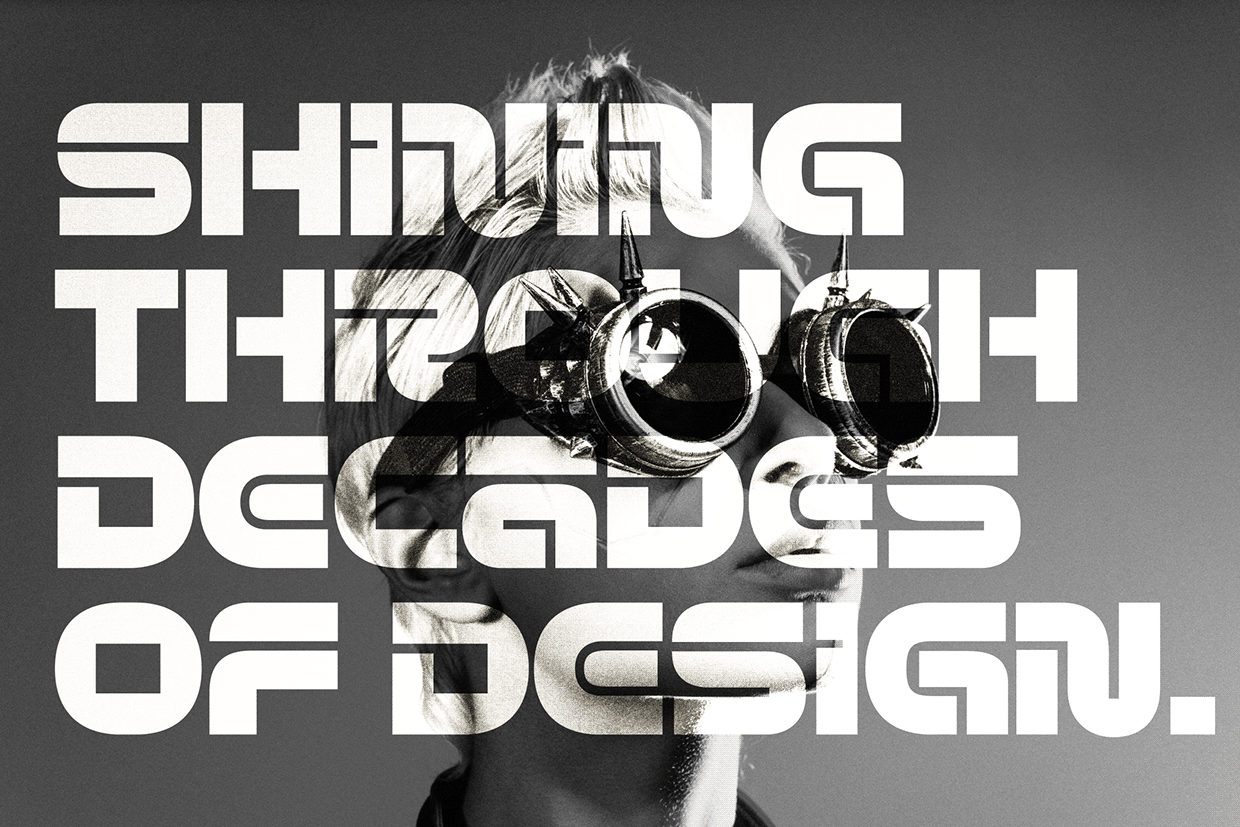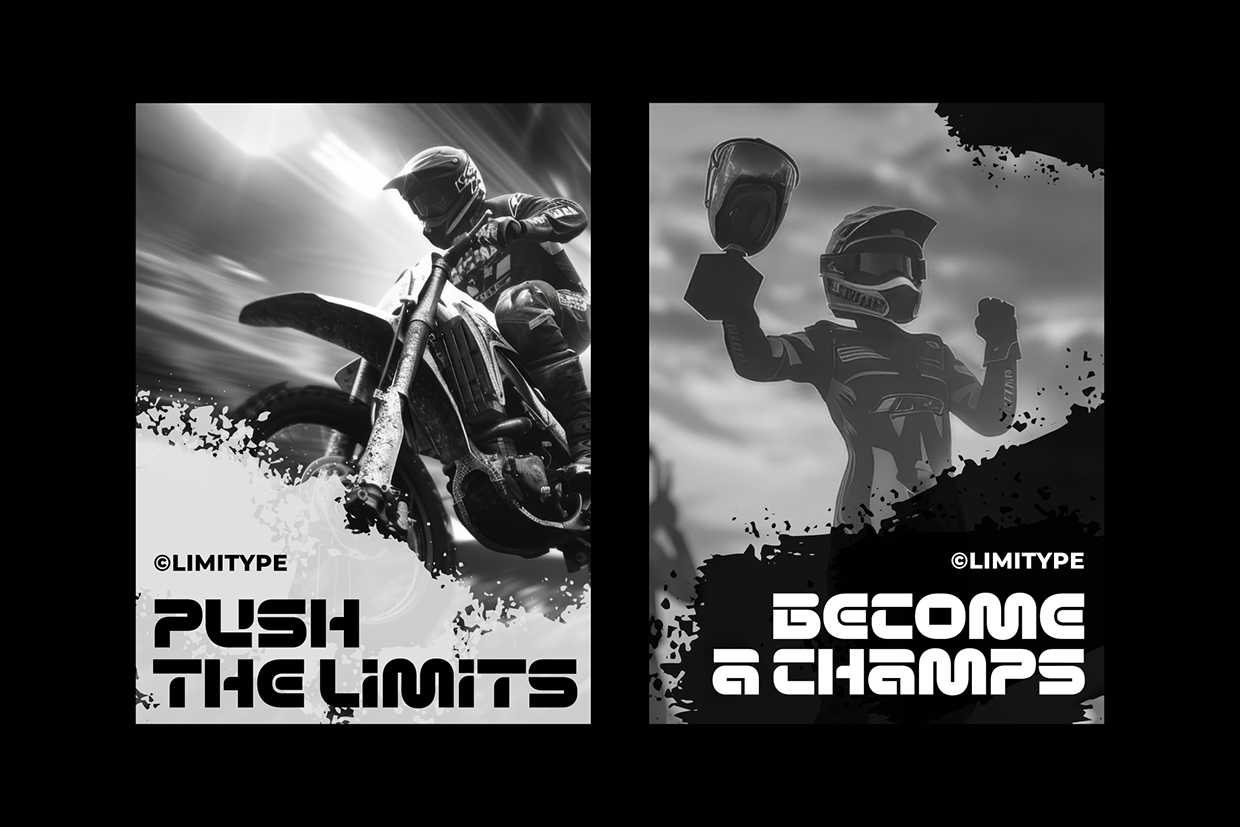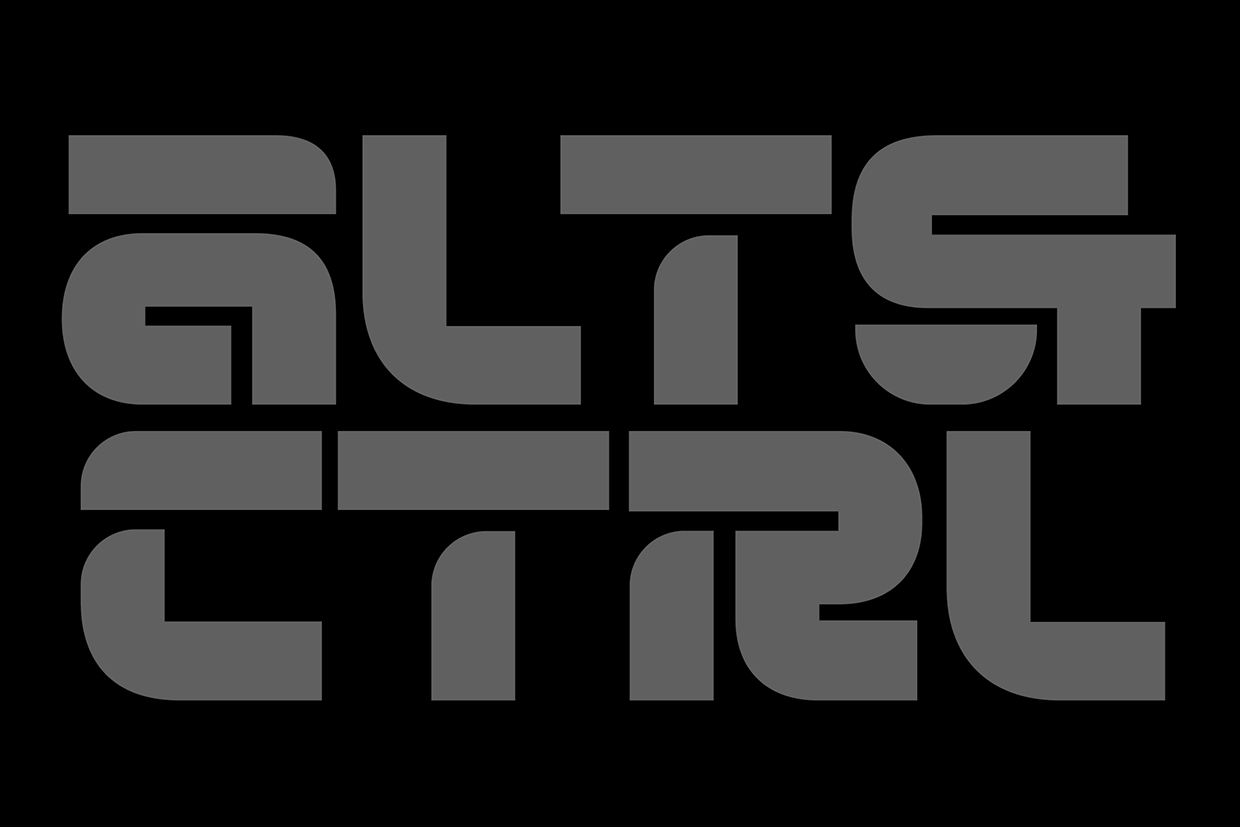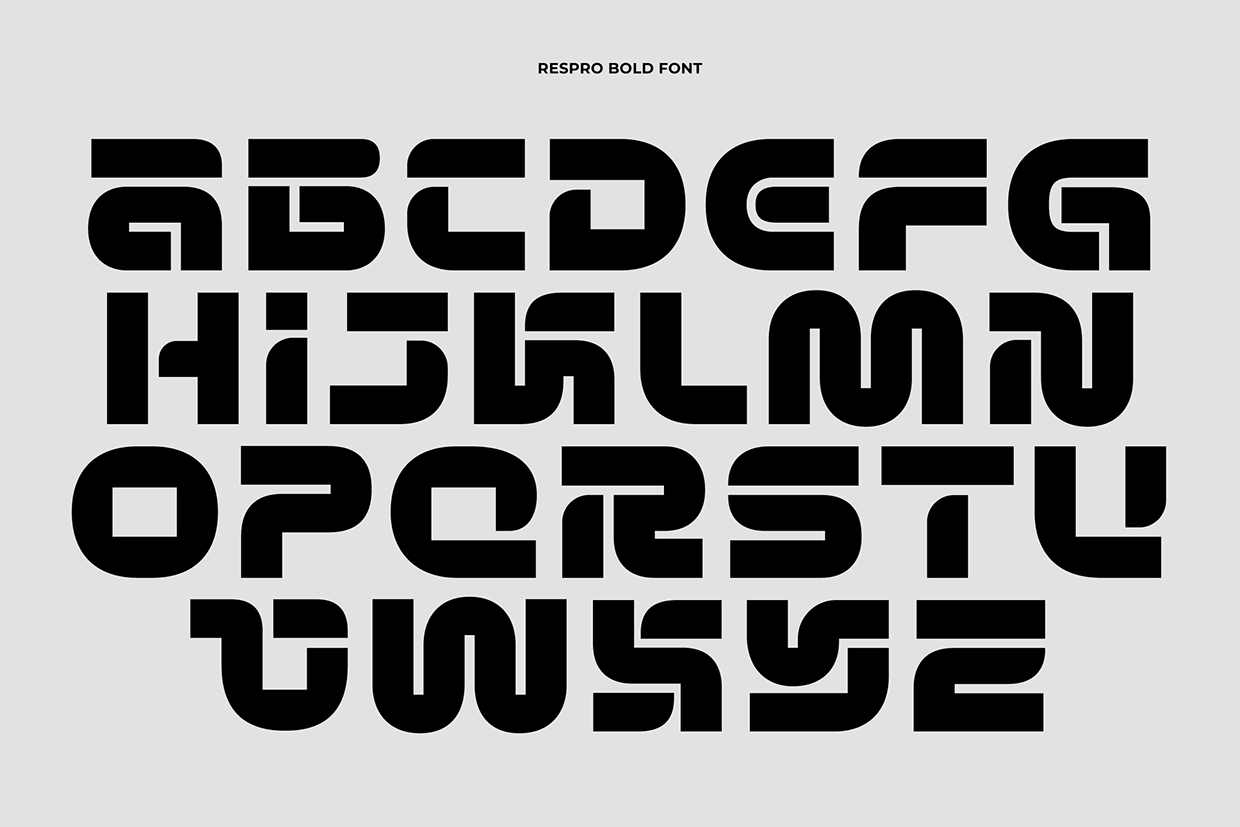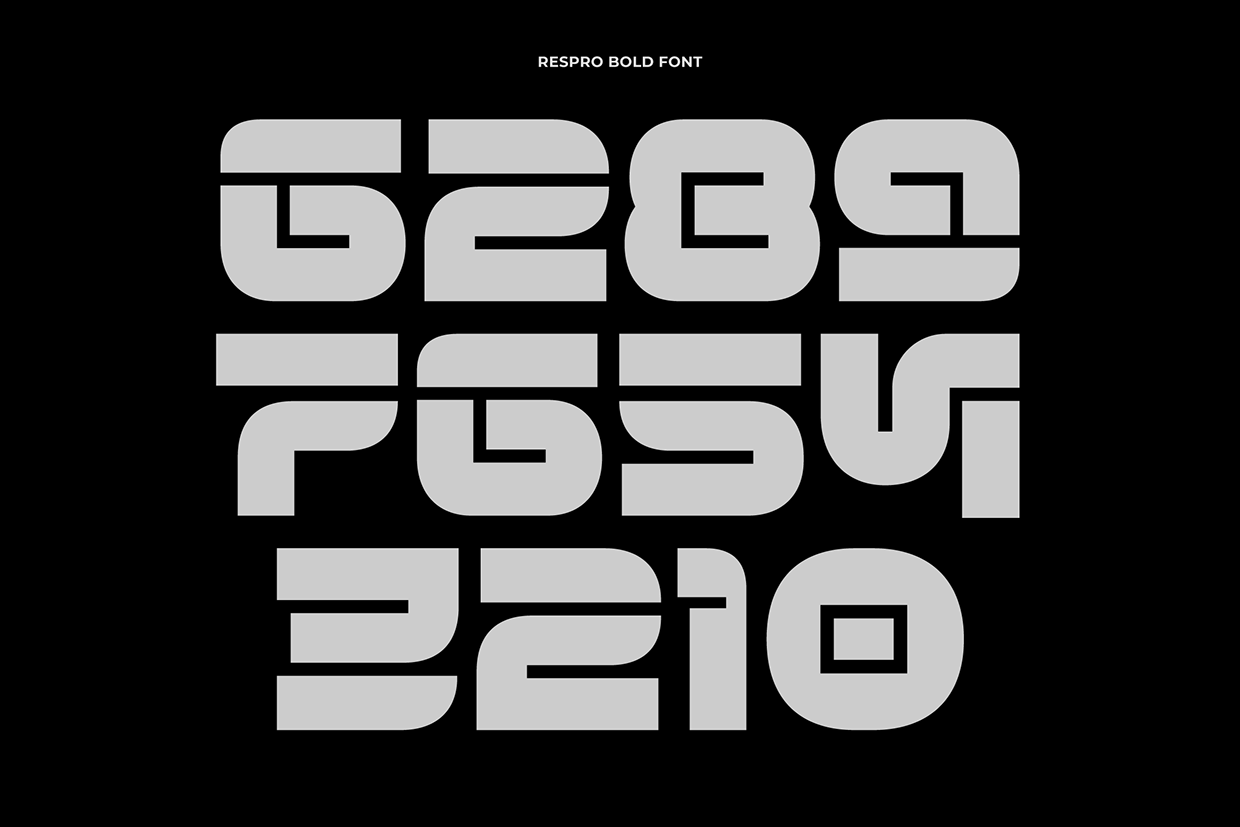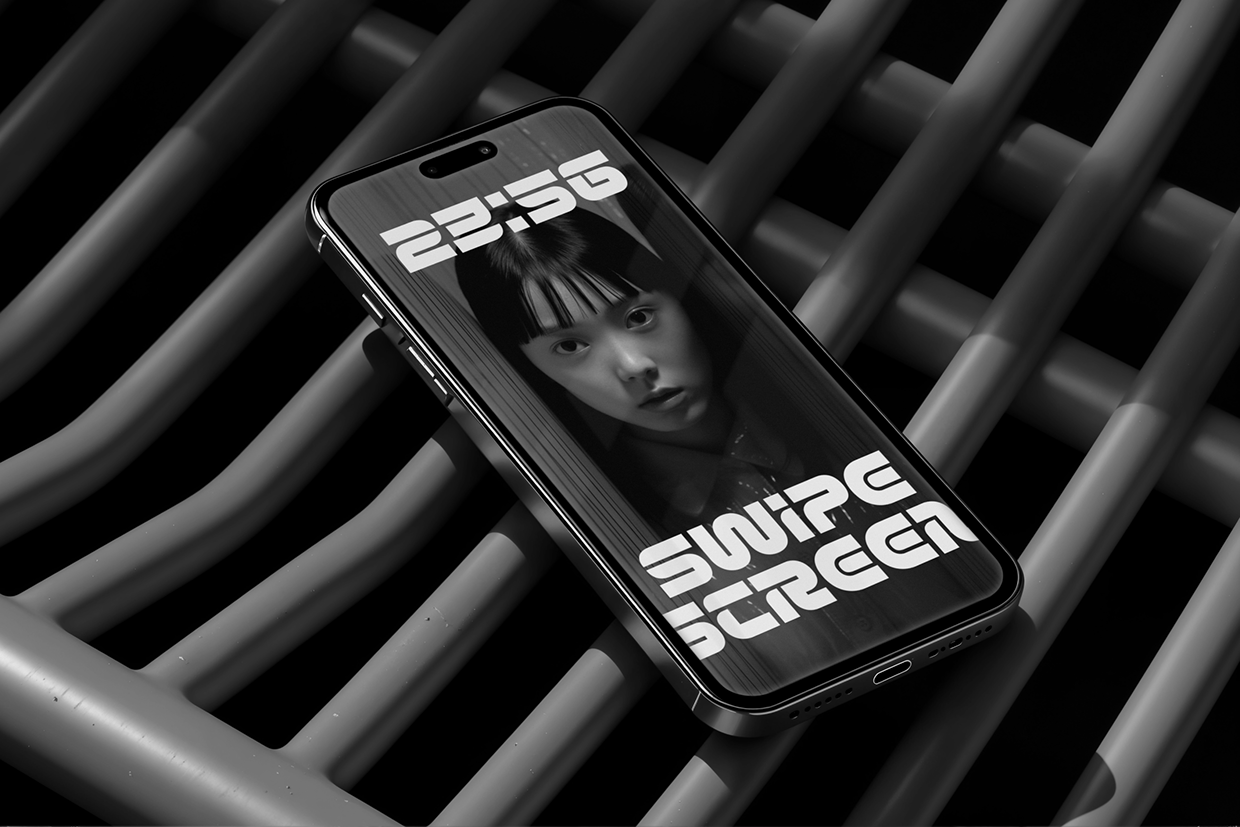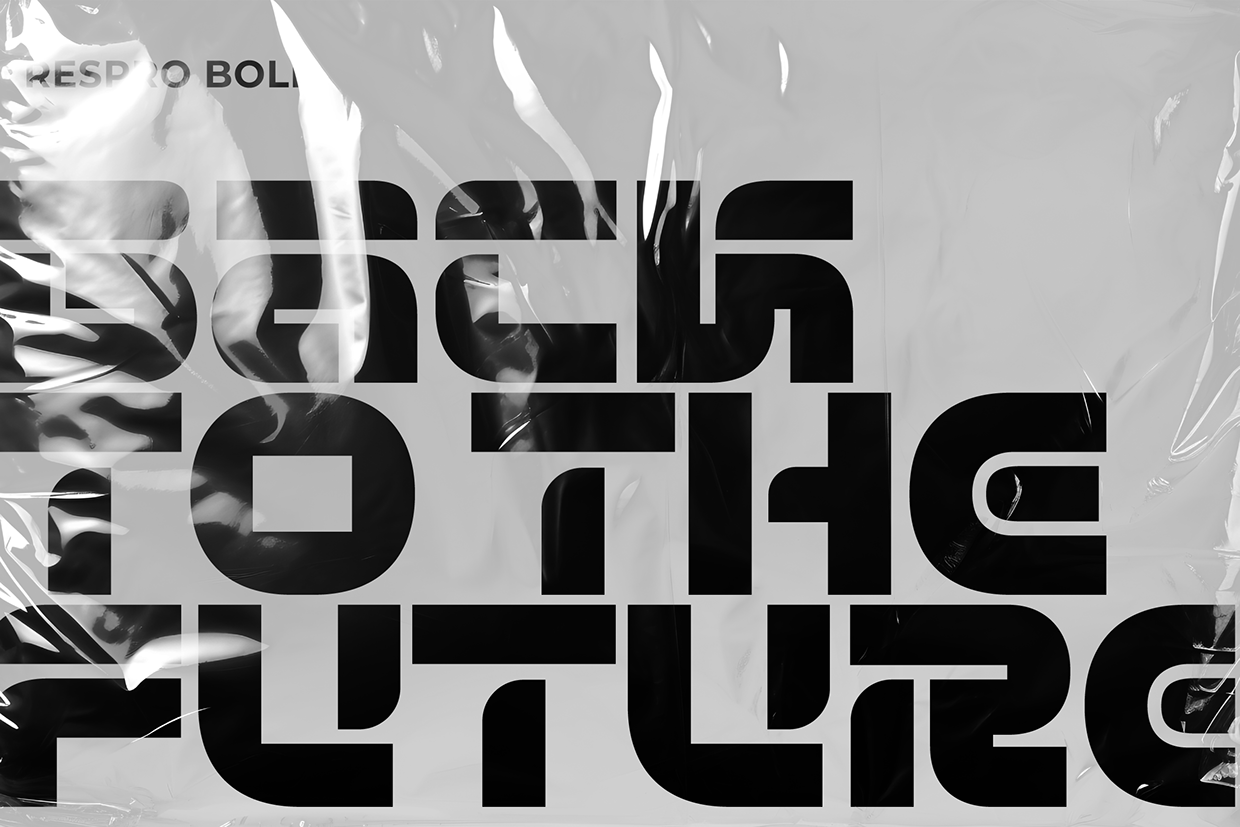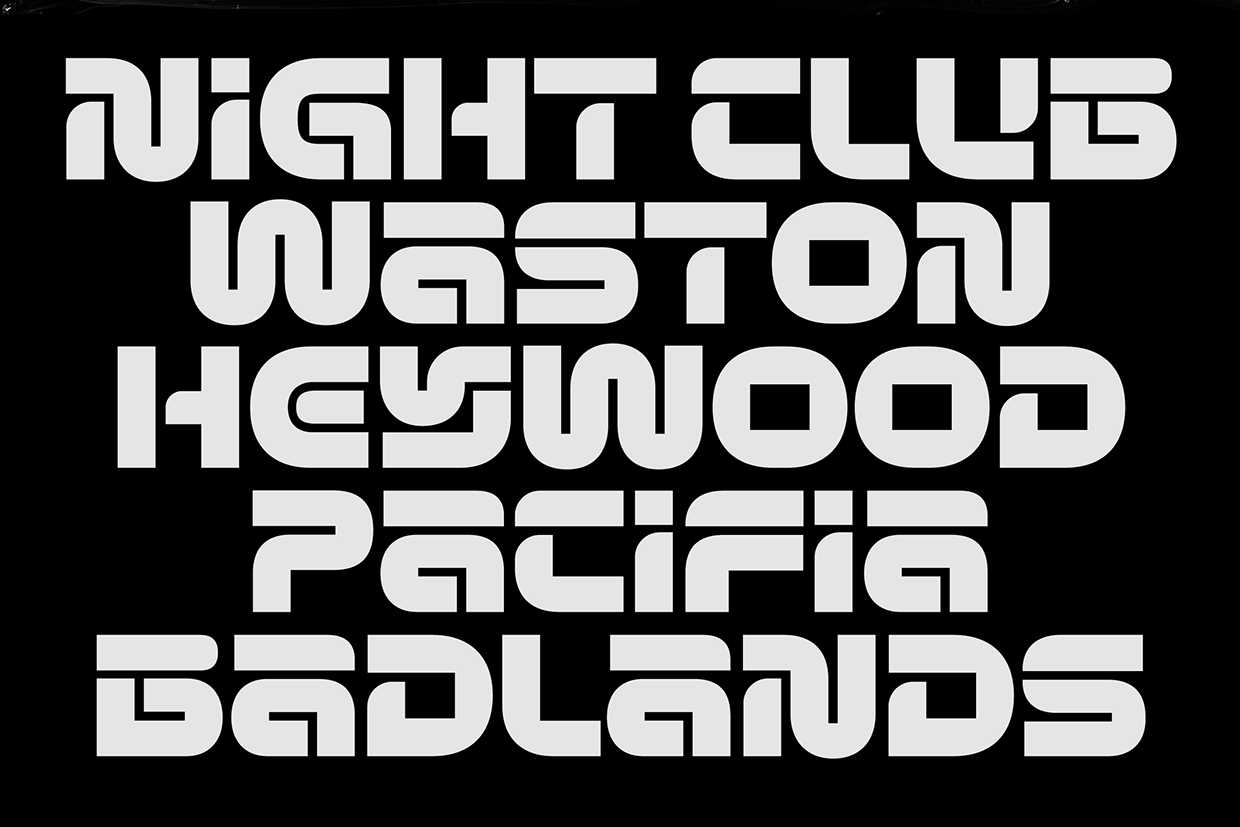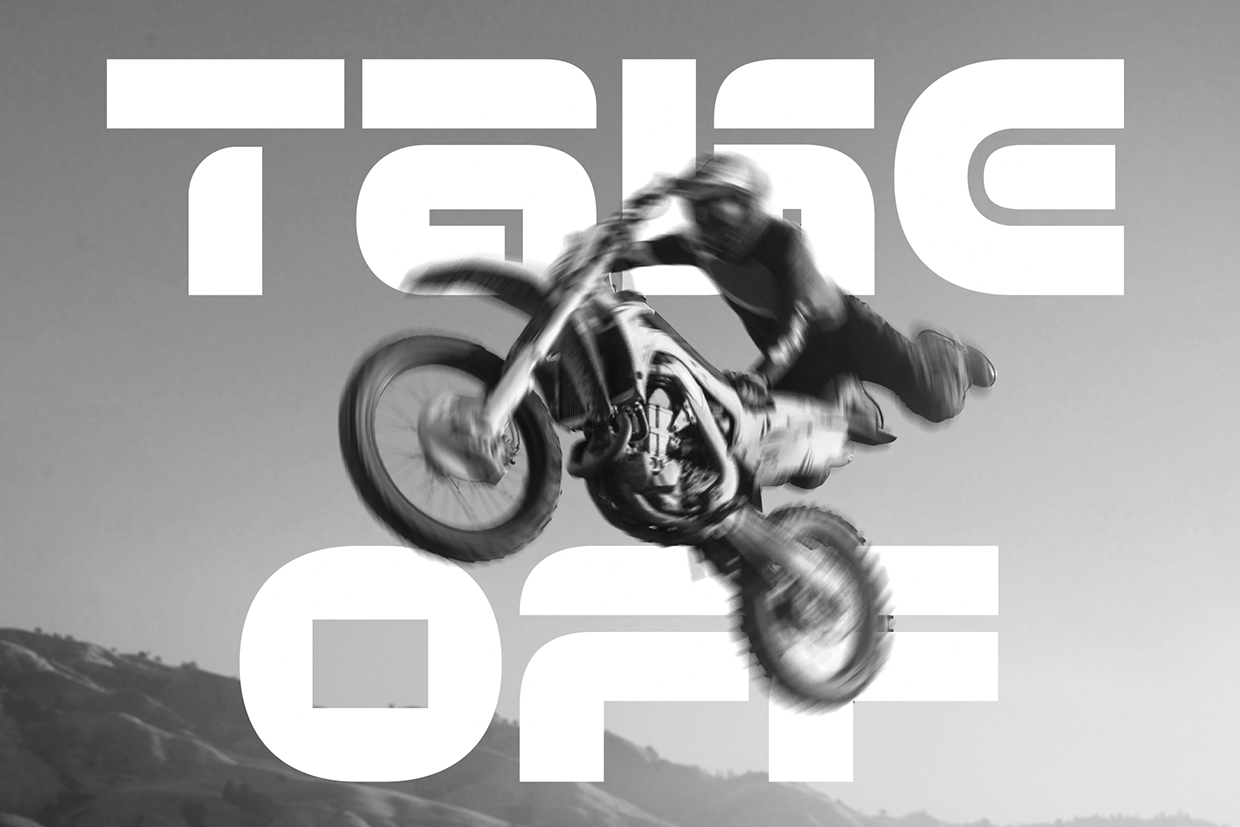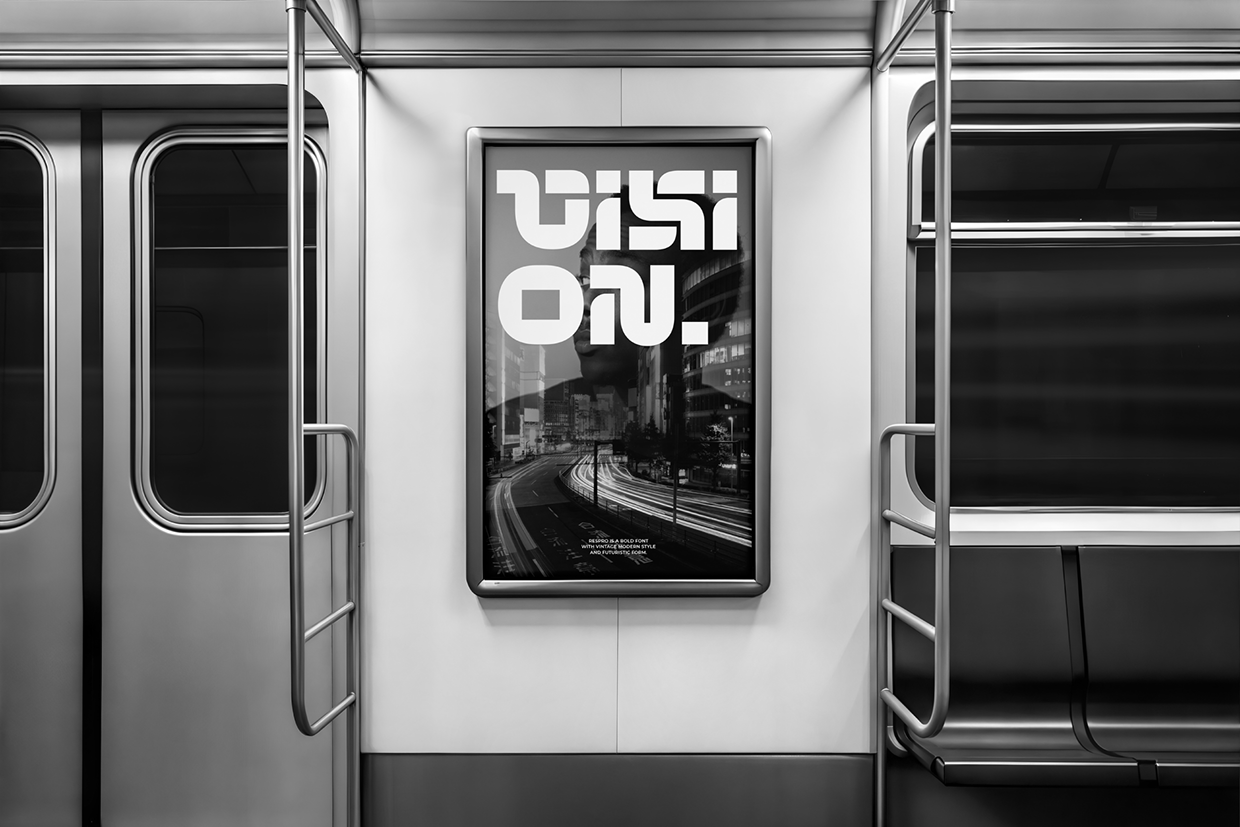
Respro - Display Font
Respro is a bold display font featuring a dynamic, rounded style that gives it a modern and professional look. Unique style details on several characters add personality and make it stand out. Perfect for modern and futuristic design, eye catching titles or headlines that need to be bold, dynamic, and modern look.